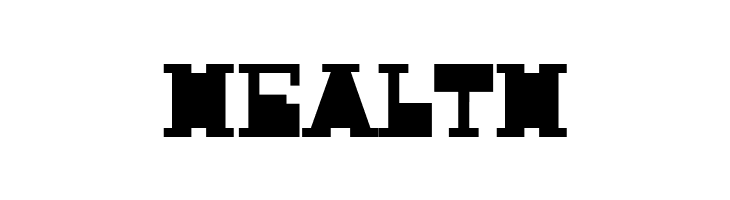
• ROCK MODUS
• Livingstone
( Fonts by Christine Mauerkirchner and Rainer Grunert - PrimaFont )
A calligraphic font with elegant, flowing characters and a dynamic style.
• ParmaPetitSCItalic
An elegant serif italic font with moderate contrast and refined style.
• Nymph's Handwriting
( Fonts by Lauren Thompson - www.nymfont.com )
A playful, casual handwritten font with smooth, flowing lines.
• the haine au carre !
( Fonts by Tn2 - TOM )
An expressive, artistic font with a splattered ink appearance and cursive connections.
• VincHand
( Fonts by joeBob graff-X )
A lively handwritten font with fluid, natural strokes and a playful aesthetic.
• Vadim's Writing
( Fonts by Omega Font Labs )
A casual, handwritten font with a playful and informal style.
• Pointers
• Latté
• Via-A-Vis
A modern, artistic font with horizontally split characters and bold strokes.